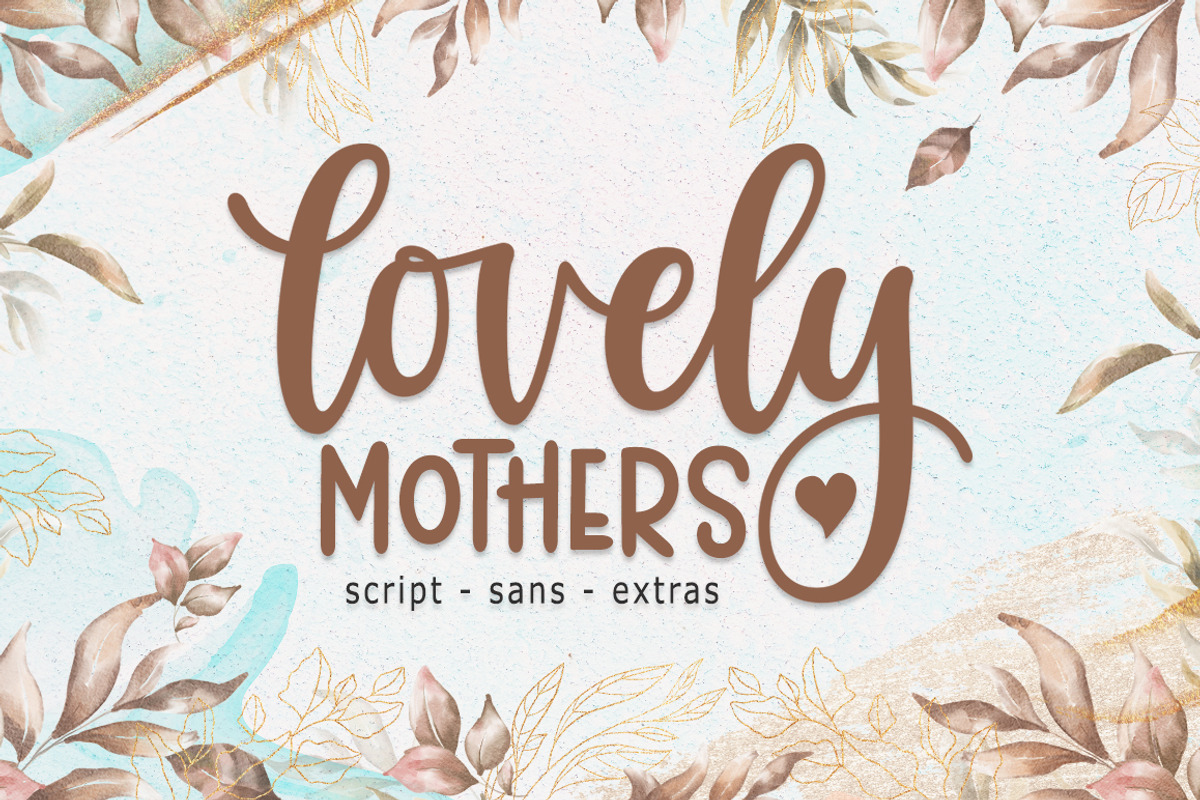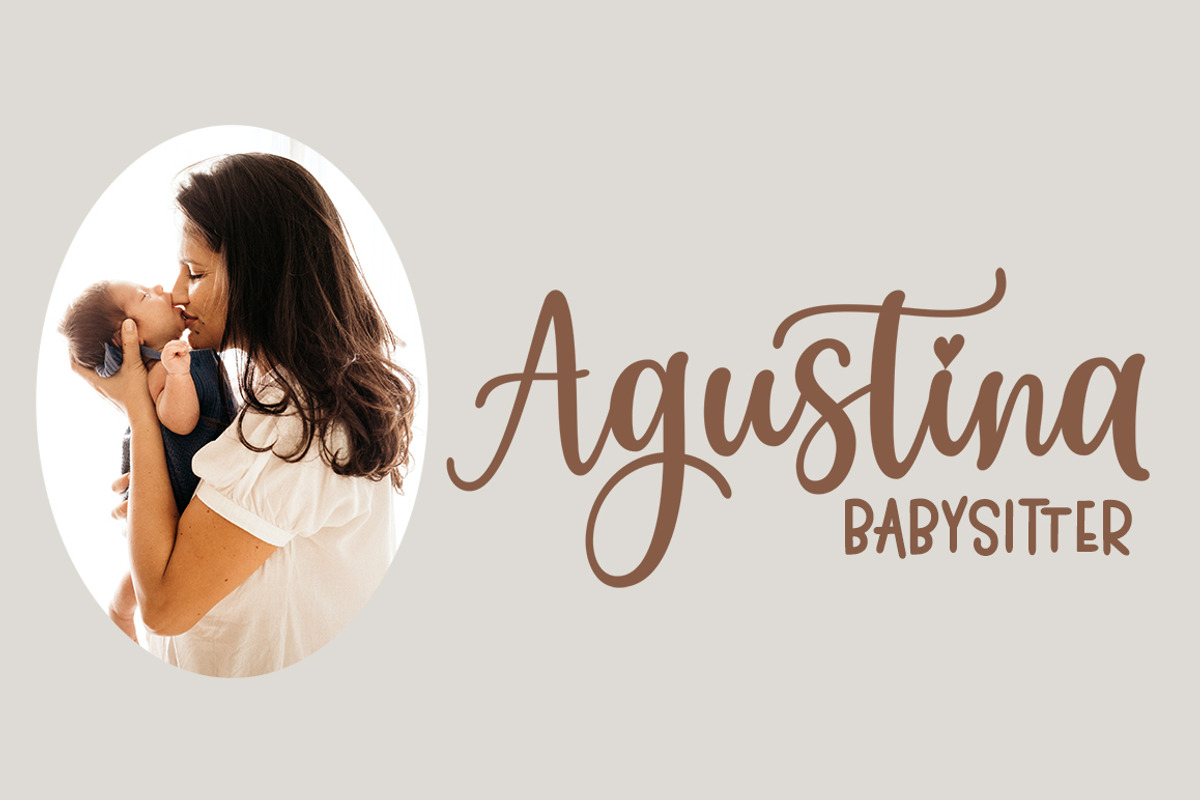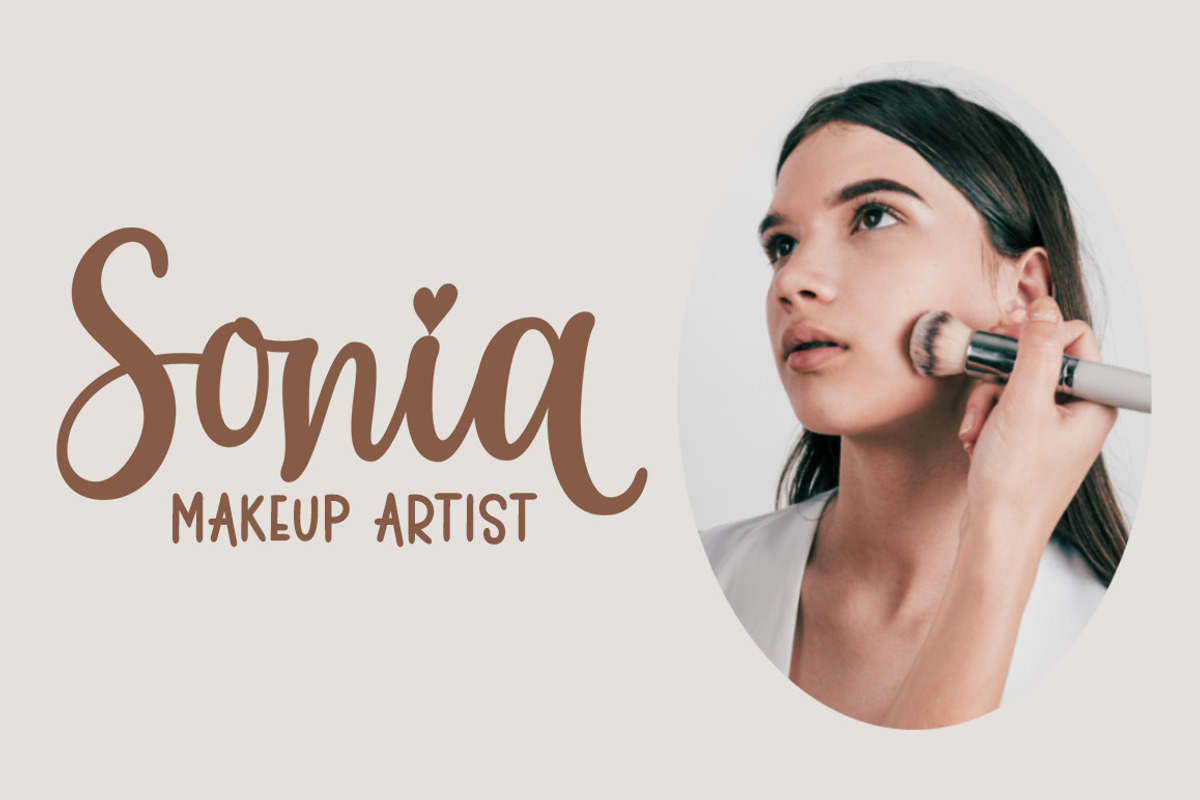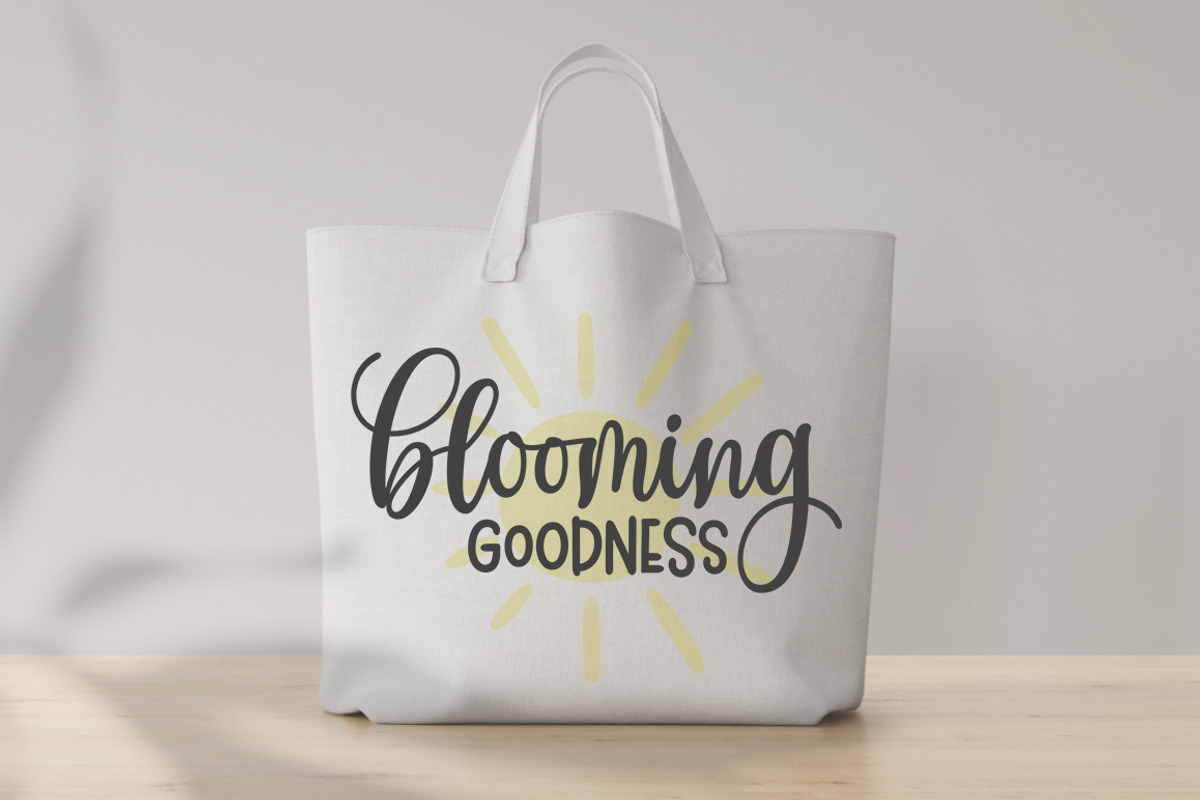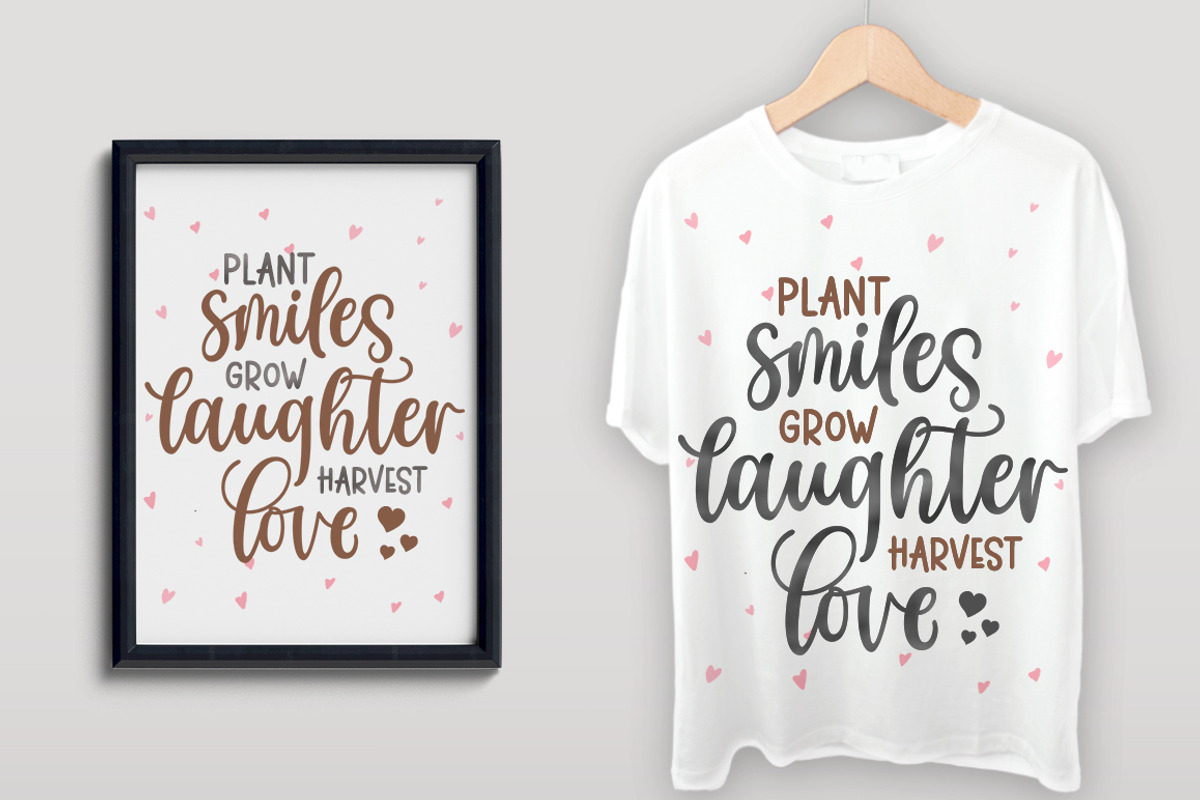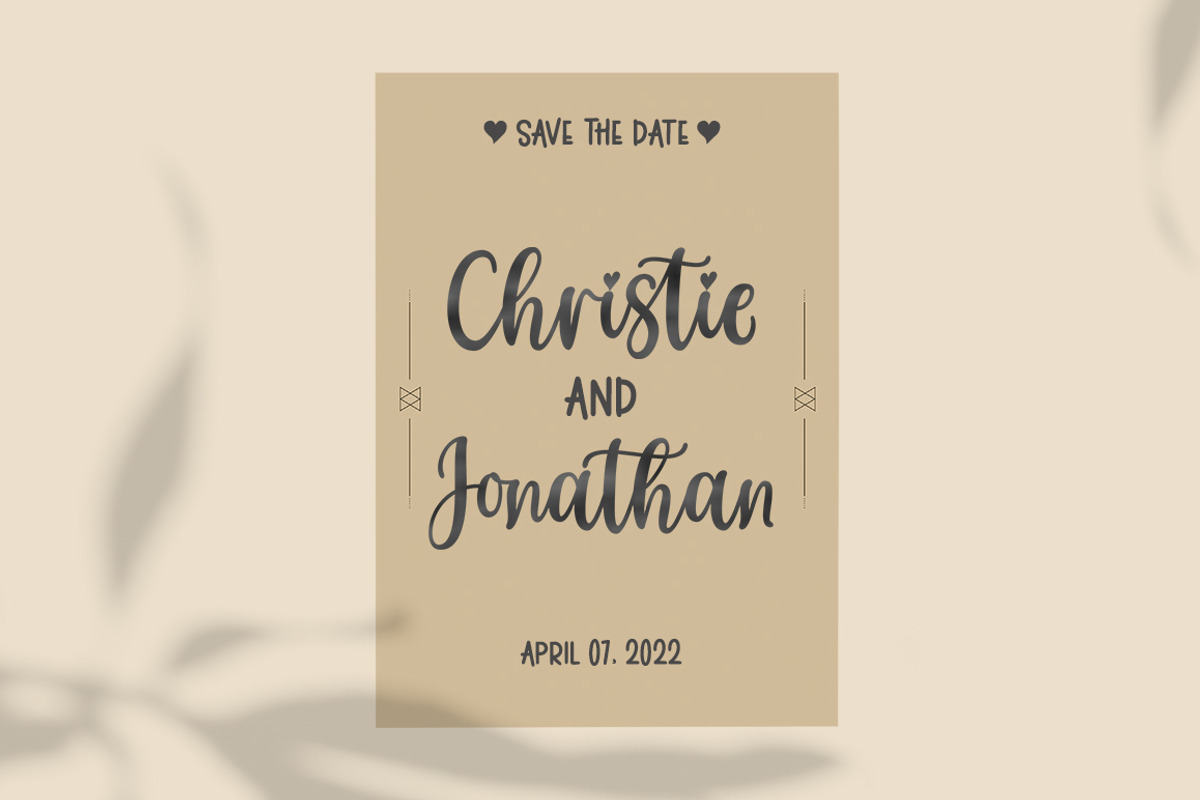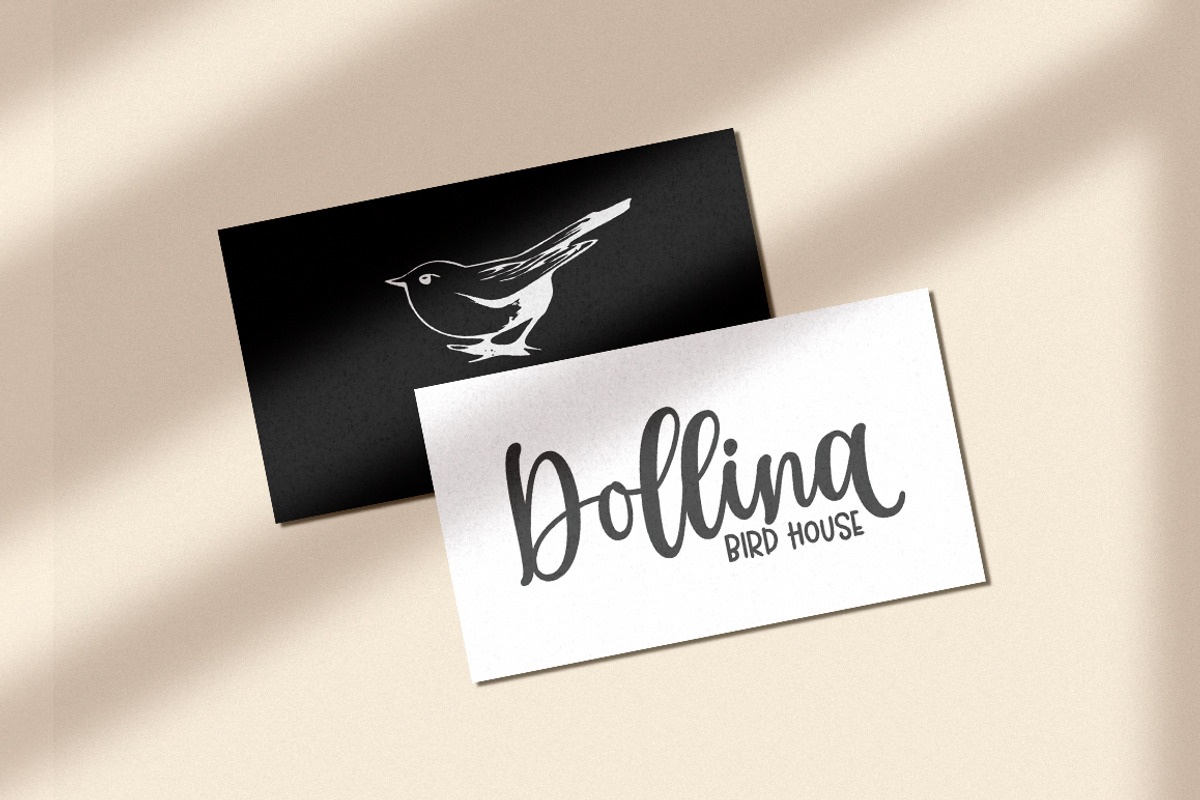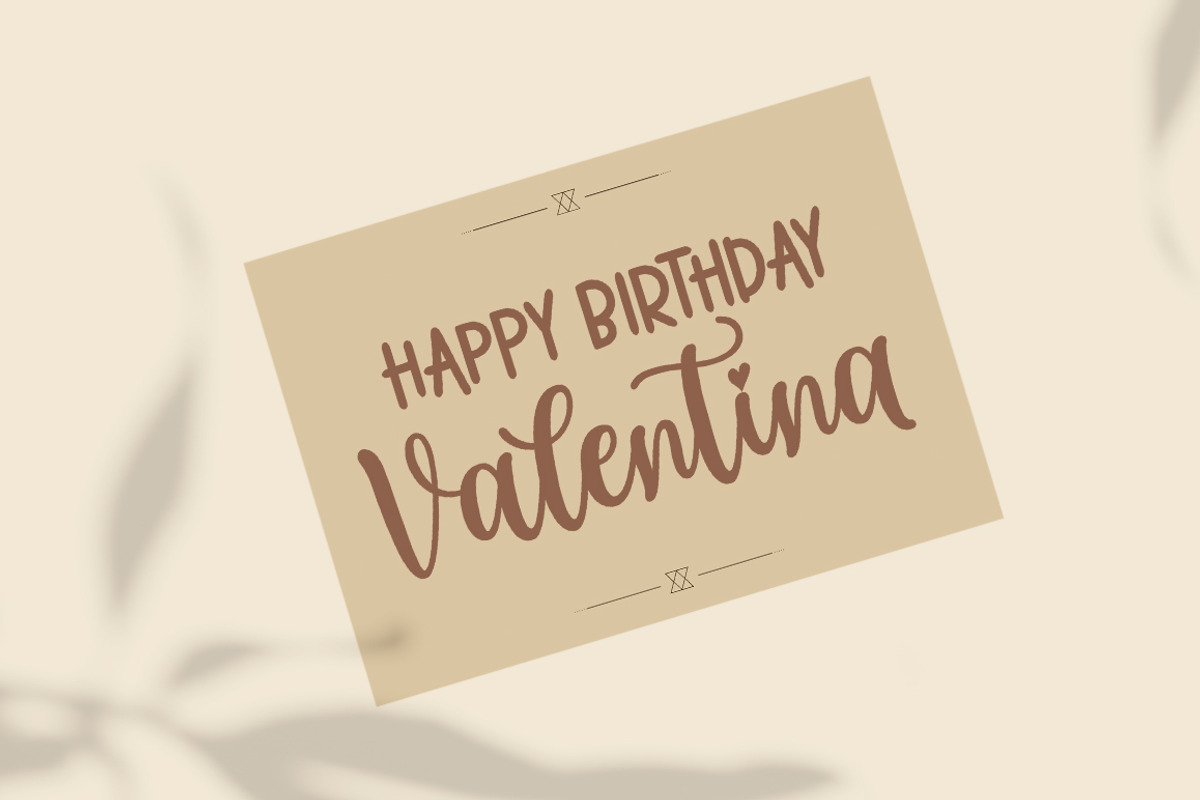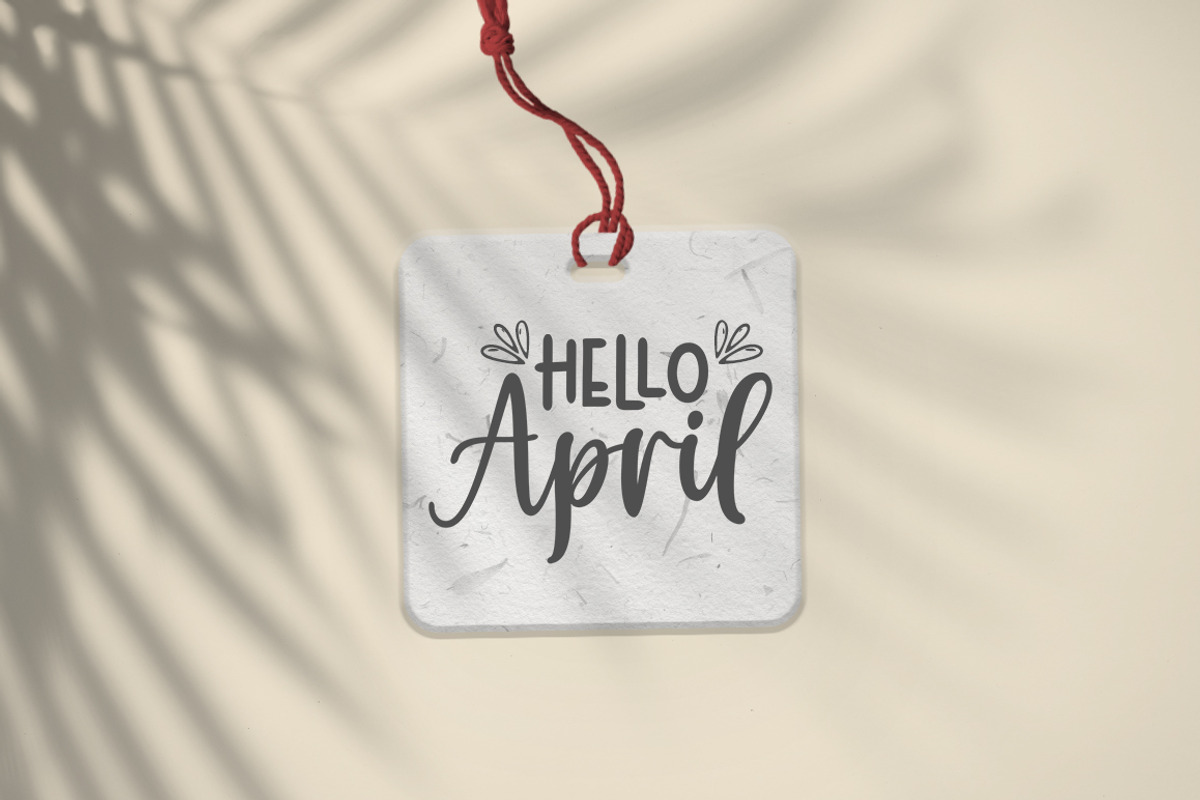
Lovely Mothers | Lovely Font Duo
Lovely Mothers Script, Sans and Extras are beautiful fonts. Looks amazing on wedding invitations, thank you cards, mothers day card, quotes, greeting cards, logos, business cards and any other design.
This font is PUA encoded which means you can access all glyphs and swashes with ease!
The font includes OpenType features with alternative styles, ligatures, and multiple language support.